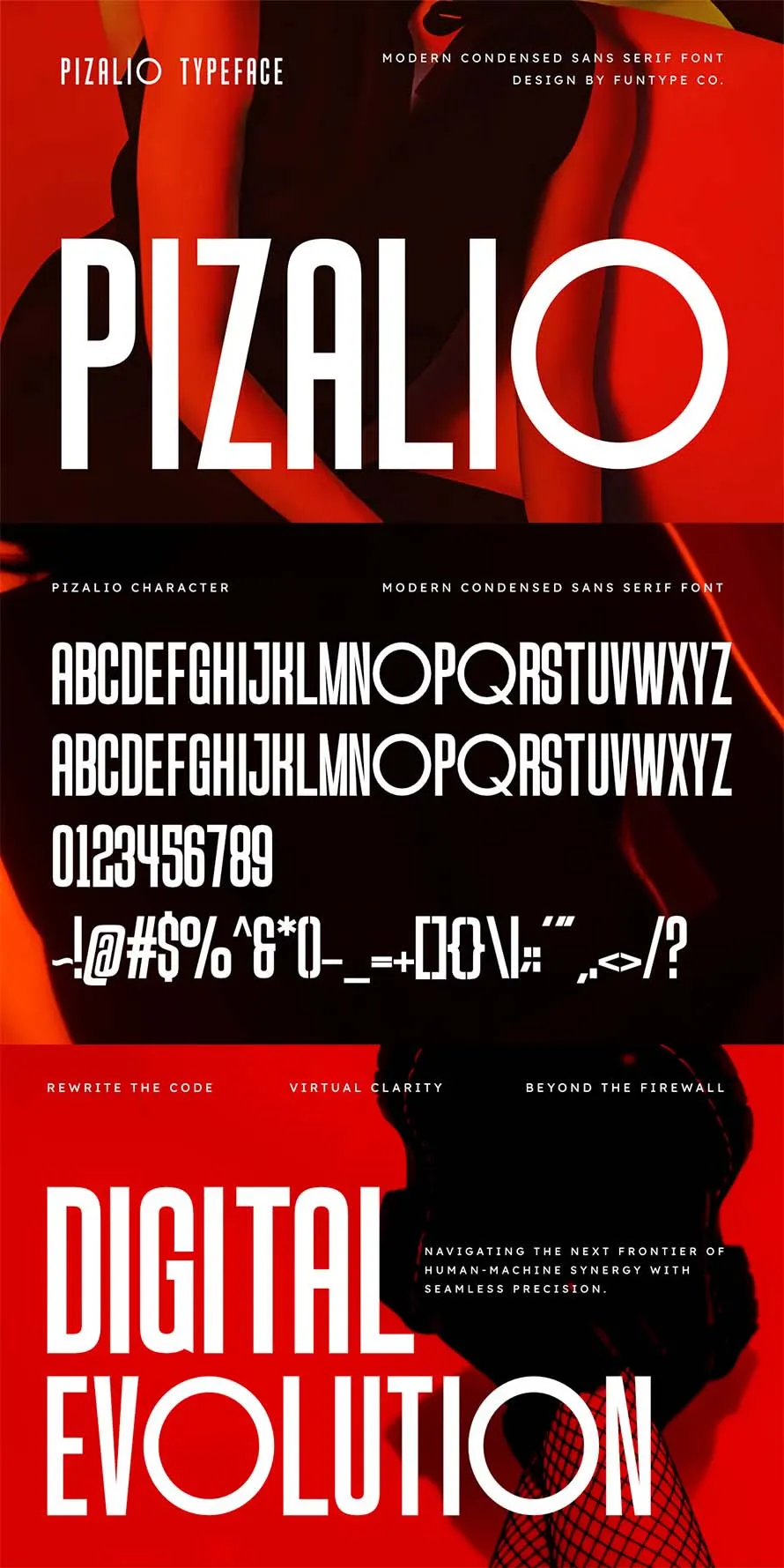
Another collection of condensed fonts which are best for big bold headings. the best condensed fonts are useful when space is limited but you still need strong message. Ultra slim fonts help fit more words in one line without breaking the layout. Many designers use condensed fonts for big bold headings, posters, and thumbnails.
These fonts keep text clear and direct. If you are working on banners or social posts, slim fonts can save space and still look strong. This list of best poster fonts includes both free and paid options.
Ultra condensed fonts are tighter and taller, which makes them good for titles. Condensed fonts also knows as “Narrow fonts” and tall fonts are often used in posters and branding where vertical space matters. They can make big bold headings stand out quickly. Some ultra condensed fonts are not good for long text, so use them for short lines. When using narrow fonts, check spacing between letters. Clean spacing helps people read without effort, even when text is packed closely.
35 Best Condensed Fonts for Bold Design
Premium condensed fonts are a better choice when you need more control and clean results. These fonts often come with more styles, better spacing, and full character sets. This helps when working on client projects, branding, or print design. Try different slim fonts and narrow styles to find what fits your layout. Many premium options also include support and updates.
In this collection, you will find premium condensed fonts made for posters, big bold headings, and strong visual work that needs clear and tight text.
Pizalio – Modern Condensed Sans Serif Font
Pizalio is a tall, narrow font with only capital letters. It has clean lines and simple curves that feel neat and clear. It is made for big titles, logos, and ads where space is small but the text still needs to stand out.
Pushkey – Condensed Sans Font
Pushkey is a condensed sans font with narrow letters that fit well in small spaces. It works for posters, social posts, and branding. It comes in regular and italic styles, supports many languages, and includes punctuation and ligatures for cleaner text.
Kranezi – Condensed Sans Serif Font
Kranezi is a narrow sans serif font with clean, simple shapes. It looks bold and easy to read even when letters are close together. It works well for headlines, branding, and layouts where space is limited but the text still needs to stand out clearly.
Bungqus Condensed Slanted Display Typeface
Bungqus Slanted is a tall, narrow font that leans to one side. The slant makes it feel fast and full of motion. It works well for big titles, posters, and street style designs where you want strong and clear text.
Johnsun – Modern Condensed Sans Serif Font
Johnsun is a tall, narrow sans serif font with only capital letters. The shapes are strong and simple, so words stand out fast. It works well for sports themes, tech titles, and ads where you need big text in small space.
Condensed Sans Serif Font – Maxcond
Maxcond is a condensed sans serif font with tall letters and clean lines. It keeps words easy to read while saving space. It works well for branding, headlines, and layouts where you need to fit more text without making it look crowded.
Calixon – Serif Condensed Font
Calixon is a serif font with tall, narrow letters and thin and thick lines. It feels classy but also a bit dark. It works well for book covers, journals, and branding where you want a smart and slightly mysterious look.
Hansanu – Condensed Font
Hansanu is a tall, narrow font with bold letters. It looks simple and clear, even in small spaces. It is used for posters, ads, and branding where words need to stand out and be easy to read fast.
Romusans – Condensed Font Duo
Romusans is a very narrow sans font with thick bold letters. It has soft corners but still feels strong. It comes in regular and italic styles. It is used for posters, sports designs, and album covers where text needs to feel big and clear.
Overlord – Modern Extra Condensed Sans Serif Font
Overlord is an extra narrow font with very tall capital letters. It looks bold and heavy with a simple geometric shape. It is used for big headlines, branding, and sports or tech designs where space is small but the text must stand out clearly.
Bixsu Condensed Font
Bixsu Condensed is a narrow font with simple letters that are easy to read. It has both uppercase and lowercase, numbers, and punctuation. It supports many languages and is simple to install, making it useful for basic design work like titles and text layouts.
Aisling – Condensed Display Font Family
Aisling is a tall, narrow font made for big titles. The letters are clean and stand straight, so words look clear and bold. It comes in regular, outline, and rounded styles. It works for posters, logos, and school or social media designs where text needs to stand out and stay easy to read.
Gervind – Bold Condensed Display Font
Gervind is a tall, narrow font with bold letters and clean shapes. It is made for big titles and posters where words need to stand out fast. It saves space but still looks strong. It is used in branding, ads, and digital designs where clear and heavy text is needed.
Dunker – Bold Condensed Font
Dunker is a bold, narrow font with thick letters and sharp edges. It looks strong and a bit aggressive. It is used for sports, car, and action style designs where text must stand out fast. It works best for big titles and logos in tight spaces.
Oblisk – Bold Condensed Display Font
Oblisk is a tall, narrow font with bold letters and clean shapes. It feels strong and steady. It is used for posters, branding, and headlines where text needs to be big and clear. It fits well in small spaces but still stands out easily.
Unlimited – Extra Condensed Font Family
Unlimited is an extra narrow font family with very tall, thin letters. It helps fit more words in small space while staying easy to read. It is used for posters, branding, and headlines. It comes in many weights and works in most design apps and computers.
Roloker Condensed Headline Font
Roloker is a bold, narrow font with strong straight letters. It looks clean and heavy at the same time. It is used for posters, branding, and magazine covers where big titles need to stand out and stay easy to read.
Romanine Pro – Condensed Sans Serif Font
Romanine Pro is a narrow sans serif font with simple, tall letters. It comes in regular and italic styles. It includes punctuation, different language support, and extra letter options. It is used for posters, branding, and social media where text needs to be clear and fit small spaces.
Sports – Modern Sporty Condensed Sans Font
Sports is a bold, narrow font made for strong titles. It uses only capital letters with clean, tight shapes. It is used for posters, social posts, and branding where words need to look strong and easy to see fast.
Humble – Modern Condensed Sans Serif Font
Humble is a narrow sans serif font with tall, clean letters. It looks simple and neat, so words are easy to read. It works for posters, websites, and magazines where text needs to stand out without looking messy.
Overhead – Modern Condensed Sans Serif Font
Overhead is a bold, narrow font with tall letters. It is made for big titles that need to stand out fast. It is used in posters, branding, and social media where text must be clear and strong.
Esporta – Modern Condensed Sans Serif Font
Esporta is a tall, narrow font with bold and simple letters. It looks strong and is easy to read. It is used for posters, branding, and social media where text needs to stand out clearly and feel powerful.
Limited – Modern Condensed Sans Serif Font
Limited is a narrow font with bold capital letters only. It has clean shapes that are easy to read. It is used for posters, branding, and social media where text needs to look strong and clear in small space.
NexCondense – Condensed Display Font
NexCondense is a tall, narrow font made for tight spaces. The letters are simple and easy to read even when packed close. It has a regular and italic style. It is used for headlines, sports, tech screens, and packaging where text must fit small areas but still stay clear and strong.
Taller – Modern Condensed Tall Font
Taller is a narrow font with very tall letters. It looks clean and simple, so words are easy to read. It is used for logos, posters, and school or social posts where space is small but text still needs to stand out clearly.
Skybold – Condensed Font
Skybold is a narrow font with bold, simple letters. It is easy to read and works well for big titles. It is used for posters, magazines, logos, and other designs where text needs to stand out clearly in small space.
Million – Branding Ligature Condensed Font
Million is a narrow font with smooth, connected letter shapes. It looks clean and a bit fancy. It is used for logos, brand names, headlines, and packaging where text needs to look neat and easy to read in small space.
Sports Condensed Font – Gorian
Gorian is a narrow sports font with tall, tight letters. It looks strong and fast. It is used for sports posters, team branding, and ads where text must be clear and full of energy.
Hugeon – Modern Corporate Condensed Font
Hugeon is a narrow font with clean, straight letters. It looks simple and professional. It is used for company logos, presentations, and headlines where text needs to fit small space but still stay easy to read.
Theadzan – Super Bold Condensed Font
Theadzan is a super bold, narrow font made for strong titles. It has thick letters and tight spacing, so words look heavy and clear. It is used for posters, clothes, magazines, and websites where text needs to feel strong and stand out fast.
Midgod Modern Condensed Ink Trap Display
Midgod is a narrow display font with tall letters and special cut-in shapes. It looks bold but also neat. It is used for posters, headlines, and layouts where space is tight but text still needs to stay clear and strong.
Merca Condensed Sans Font
Merca is a narrow font with tall, bold letters. It looks strong and simple at the same time. It is used for posters, headlines, and branding where text needs to stand out in small space.
Sleek – Modern Rounded Condensed Font
Sleek is a narrow font with tall letters and soft rounded edges. It looks clean and simple. It is used for tech designs, game screens, posters, and product labels where text must fit small space but still stay easy to read.